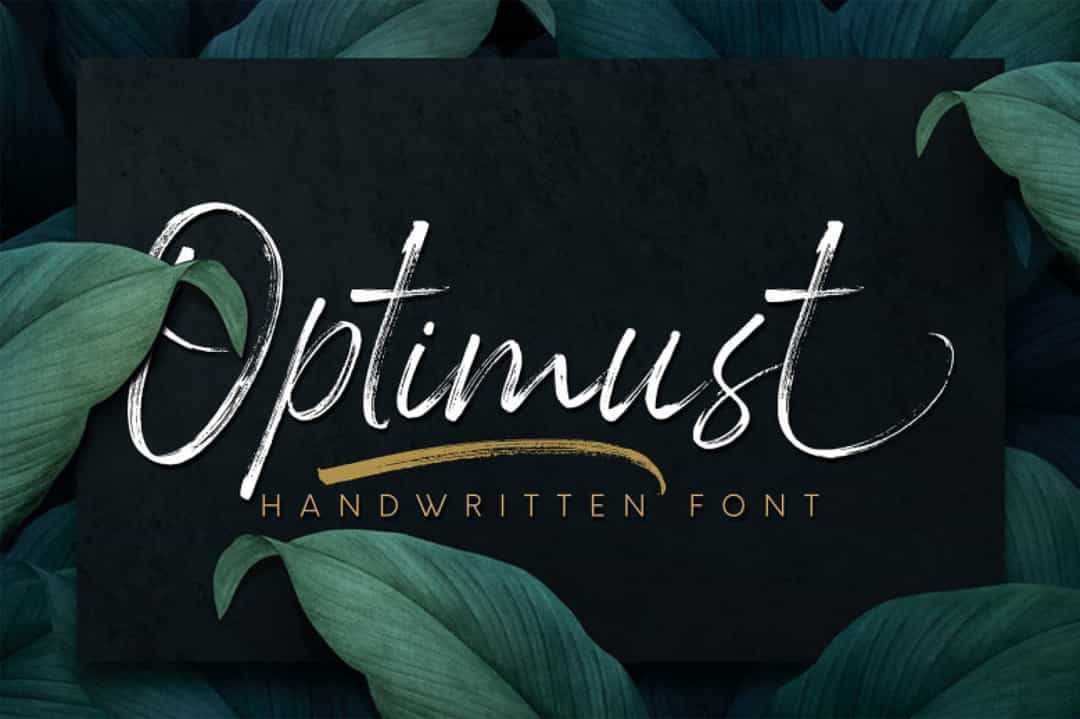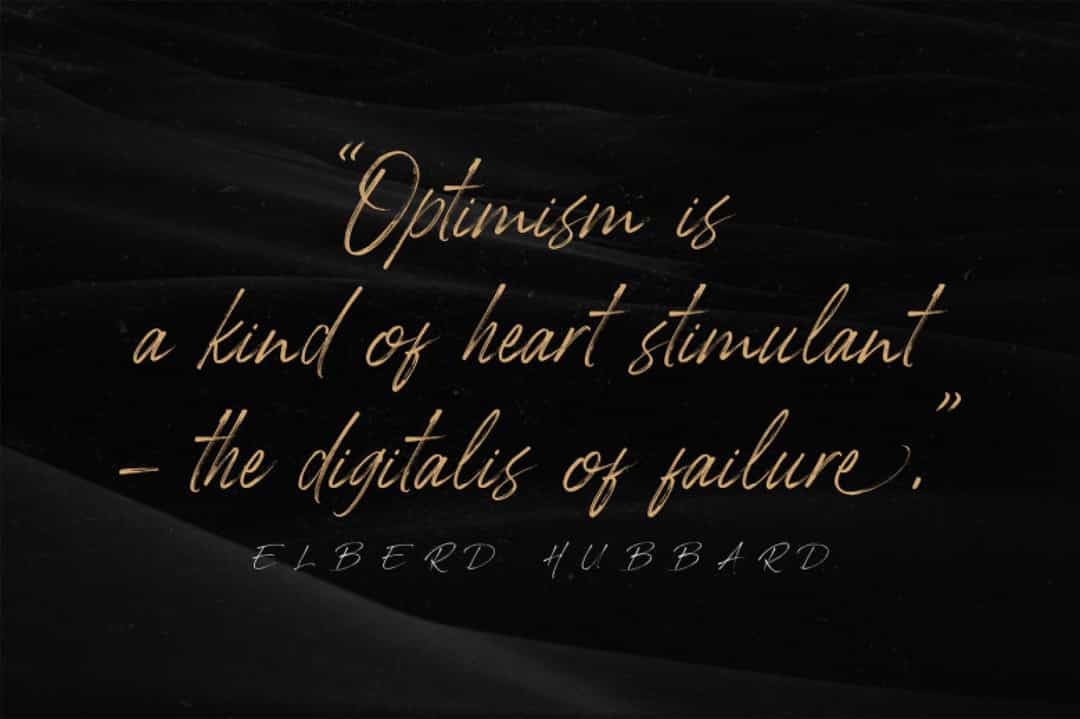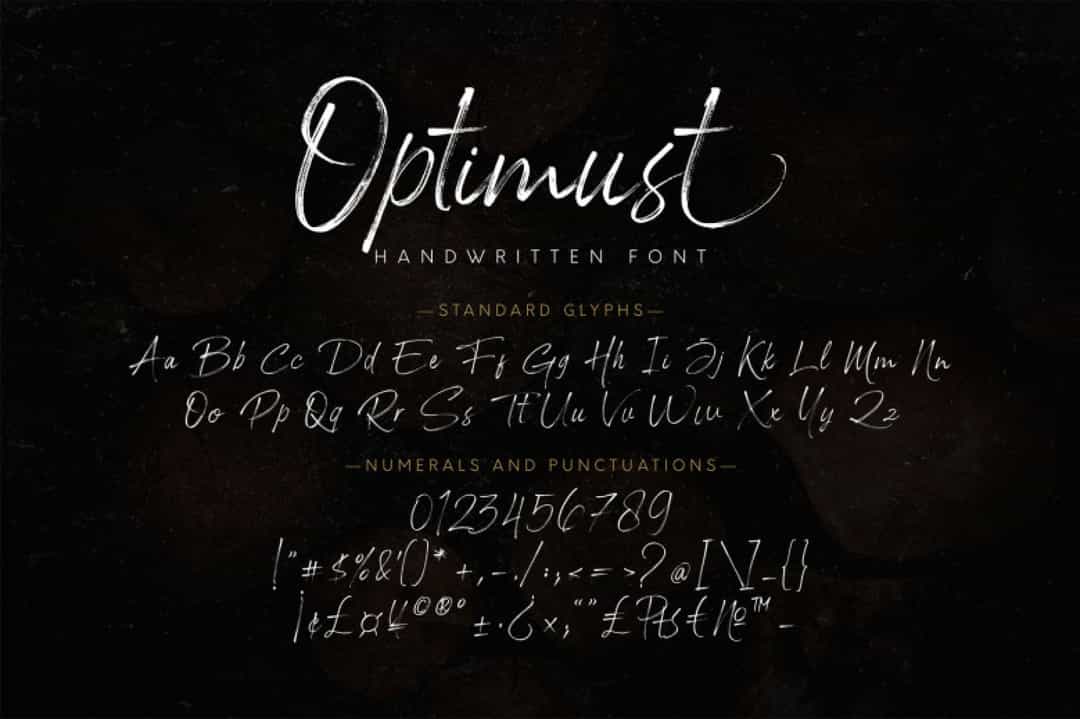
Optimust can be described as a script brush font which is written with a relaxed and sturdy style created by carefully carving it with natural textures. It is an ideal font for logos, branding wedding designs and advertisements, social media posts packaging for products, designs, labels photographs, watermarks, invitations, stationery, and all tasks that require handwriting.